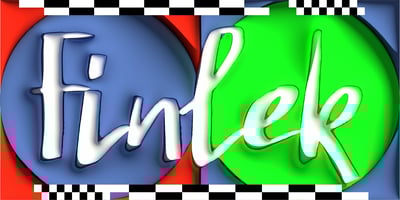
Finlek Font Family was designed by Mariya Lish and published by Inhouse Type. Finlek contains 1 styles and family package options. Finlek is a handmade typeface with subtle script characteristics. It draws inspiration from two 80s postmodern movements Memphis in Italy and Industrial Post-Punk in England. Contemporary approach to design carries the font into the twenty first century. Finlek was made to satisfy unconventional creativity, irrationality and a hunger for liberation from the dry rationalism. The font is a character with a dark side. It is a mischievous daredevil with style and free spirit, a misfit with an attitude. Finlek was designed to make a statement and stand out of the crowd. Details include 442 characters, manually edited kerning and Opentype features.